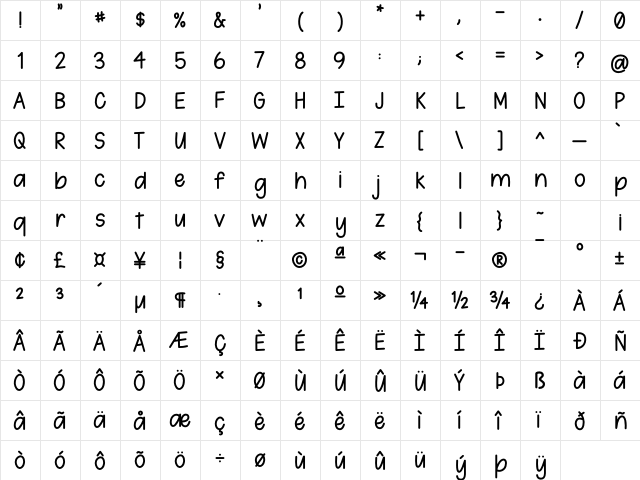
212 Baby Girl Regular Font Preview
212 Baby Girl Regular
212 Baby Girl Regular Font Details
| Foundry | 212 Fonts |
| Designer | Elizabeth McLain |
Design Context for 212 Baby Girl Typeface
212 Baby Girl offers clean, dependable letterforms without strong stylistic allegiance, making it a practical choice for designers who need flexibility.